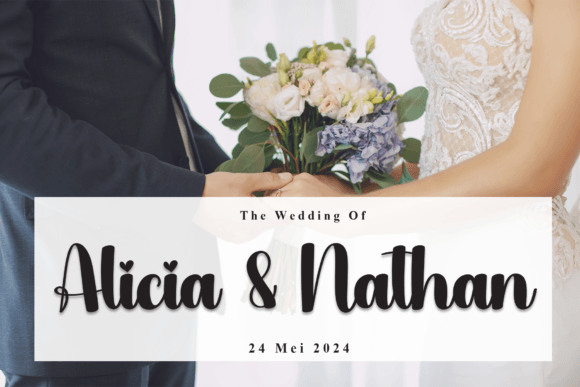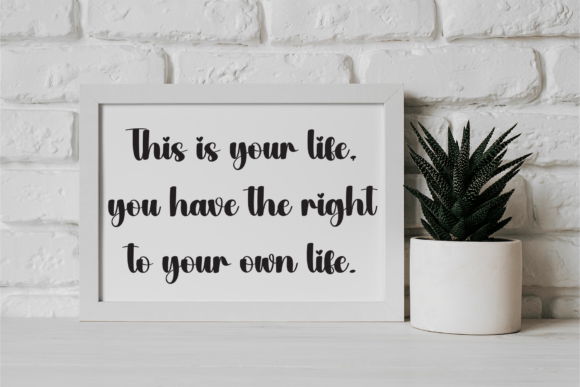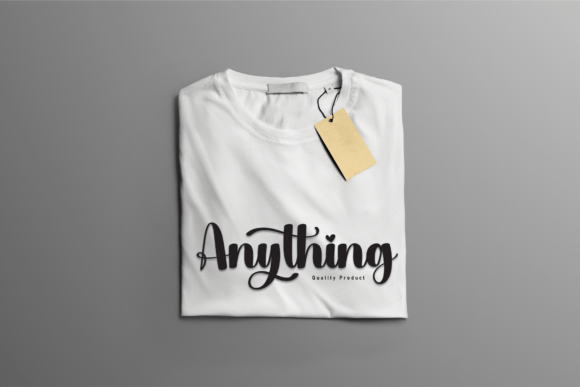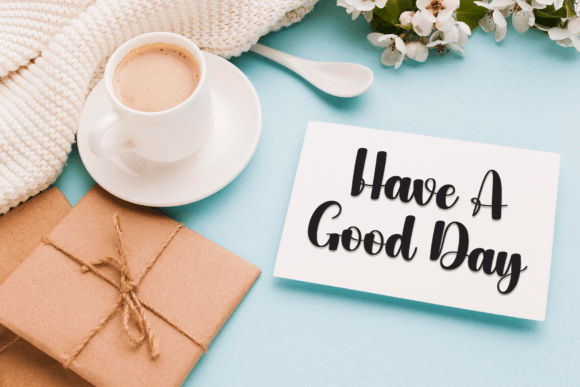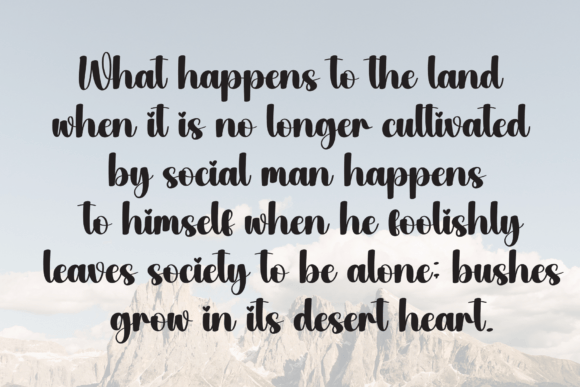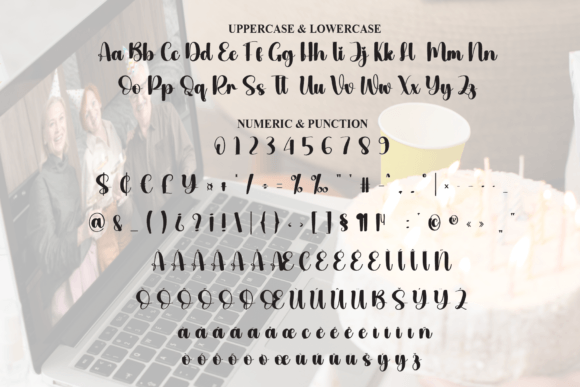
Introduction to Party Online Font
Remember the thrill of browsing through design inspiration boards, stumbling upon the perfect font that elevates your creative project from ordinary to extraordinary? For many designers, that moment is a game-changer. It’s when the entire design comes together, and you know you’ve found the perfect match. For me, that moment happened when I discovered the Party Online Font.
This modern and charming handwritten font is more than just a pretty face – it’s a design resource that exudes elegance and personality. With its graceful, flowing strokes and sophisticated character, the Party Online Font is perfect for upscale invitations, personal branding, and chic editorial designs that demand a high-quality, transparent background.
Key Features of Party Online Font
- High-quality design resource with a transparent background, perfect for creative projects
- Features a large character set with over 500 glyphs, including Latin, Cyrillic, and Greek alphabets
- Designed with a modern and playful style, making it perfect for party-themed designs, invitations, and social media graphics
- OpenType features, including ligatures, swashes, and ornaments, to add a touch of elegance and sophistication to your designs
Honest Review: Party Online Font
As a designer, I’m always on the lookout for high-quality design resources that can elevate my creative projects. The Party Online Font has caught my attention, and I’m excited to share my honest review.
What works well: ✨ The Party Online Font is incredibly versatile, with a wide range of styles and weights to suit different design needs. It’s also available for free download, which is a major bonus for designers on a budget. I’ve used it for various projects, from social media graphics to print materials, and it’s always delivered.
What doesn’t: ⚠️ While the Party Online Font is a great resource, I’ve found that it can be a bit challenging to work with on transparent backgrounds. The font sometimes appears pixelated or distorted, which can be a problem for designers who rely on clear typography.
Overall, I’d say the Party Online Font is a solid design resource that’s worth exploring. While it has some limitations, its versatility and high quality make it a valuable addition to any designer’s toolkit.
- ✨ Wide range of styles and weights
- ⚠️ Can be challenging to work with on transparent backgrounds
- ⚠️ Limited support for advanced design features
The Party Online Font is perfect for any creative project that requires a high-quality, unique font. Some common use cases include:
- Party invitations and decorations.
- Business branding and marketing materials.